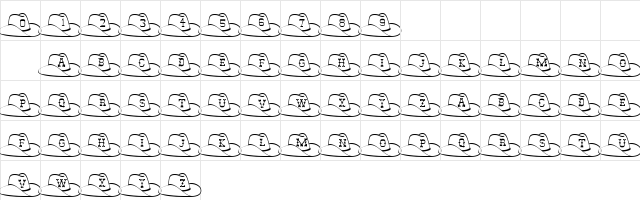
101! Kimmy's Kowboy Hat Regular
Design Context for 101! Kimmy's Kowboy Hat Typeface
101! Kimmy's Kowboy Hat is a composed and adaptable typeface that performs quietly and consistently across a wide range of design contexts.